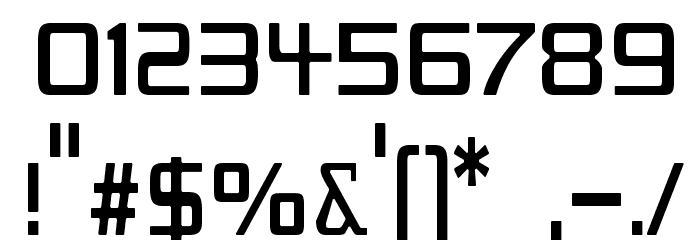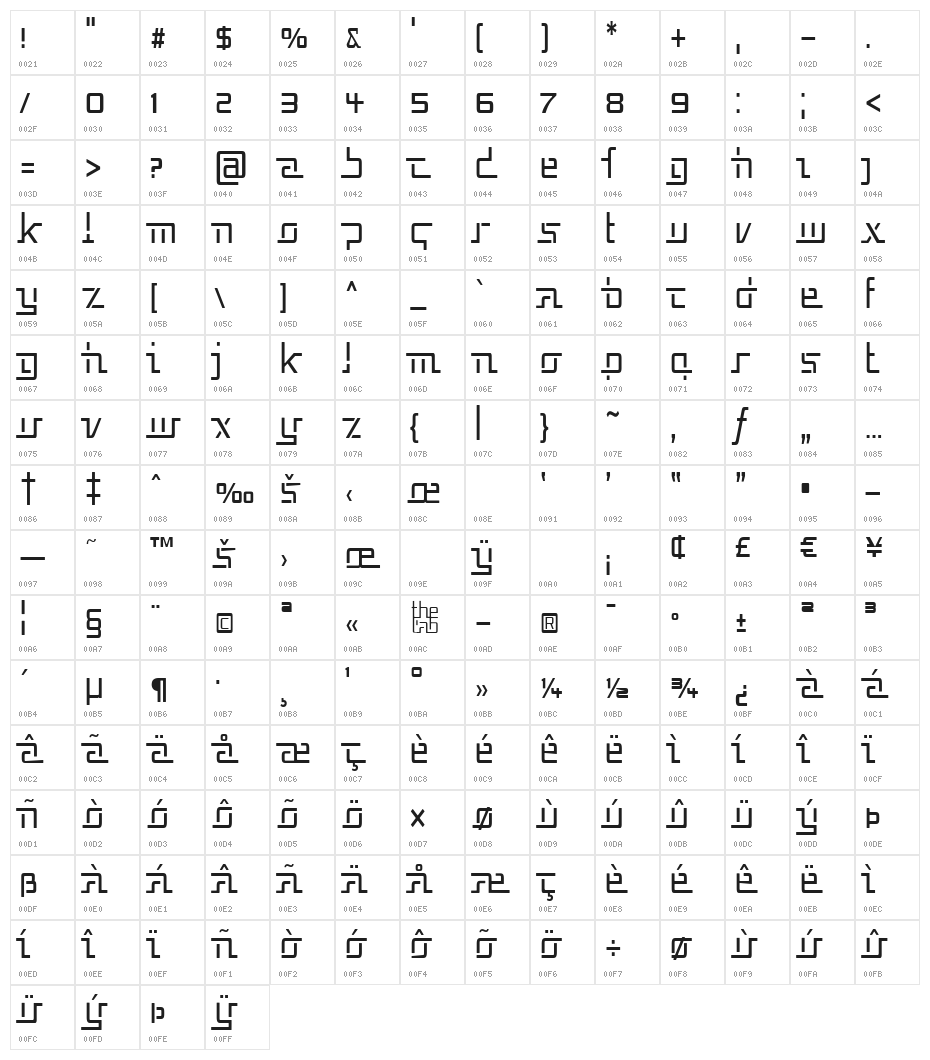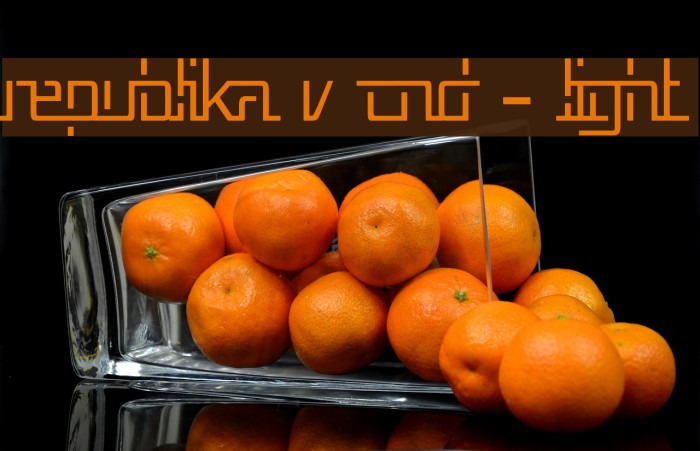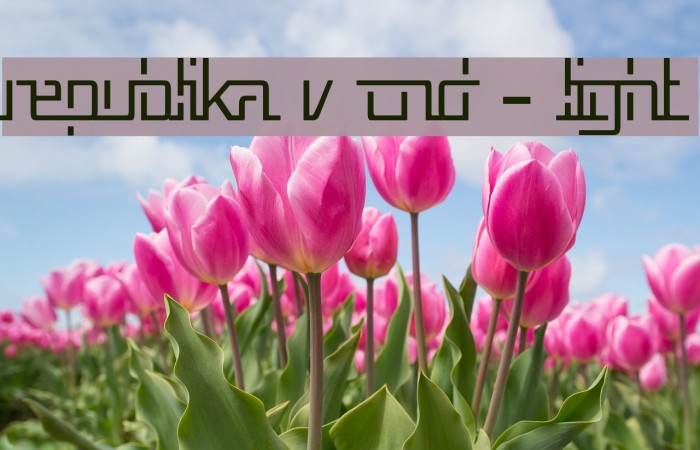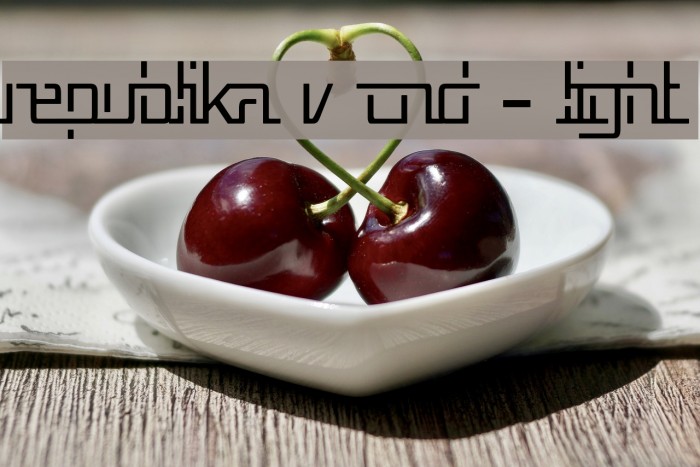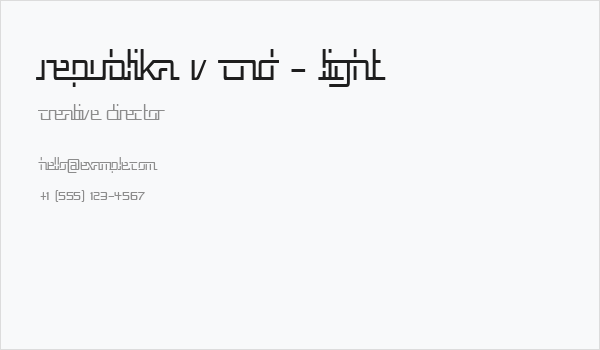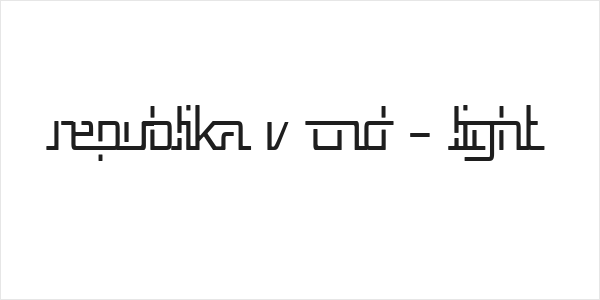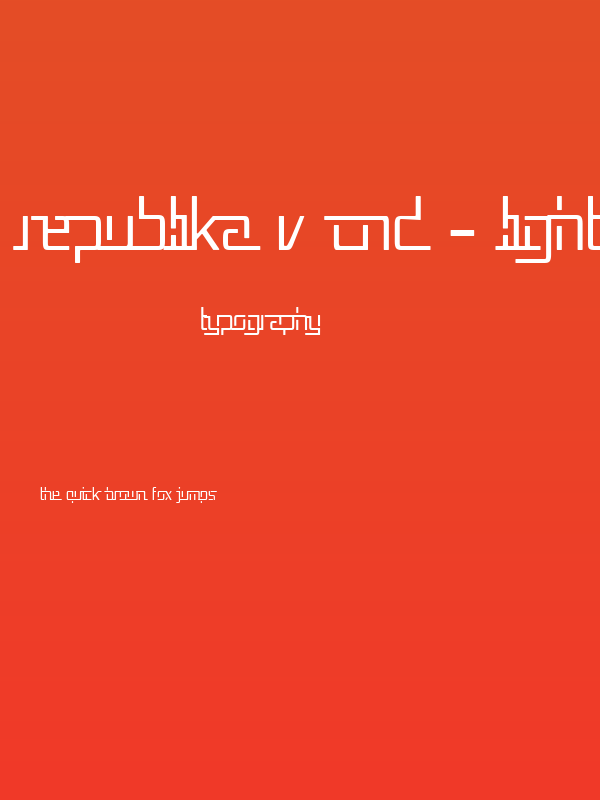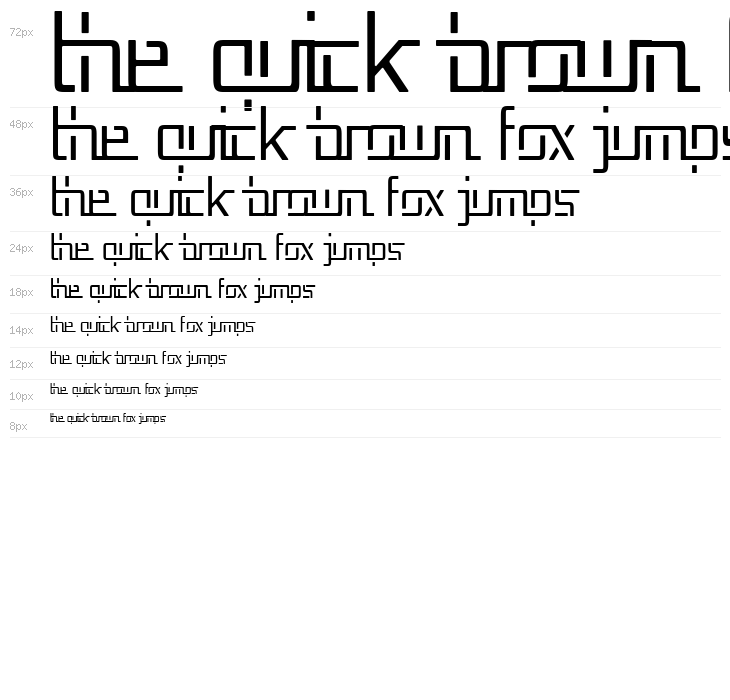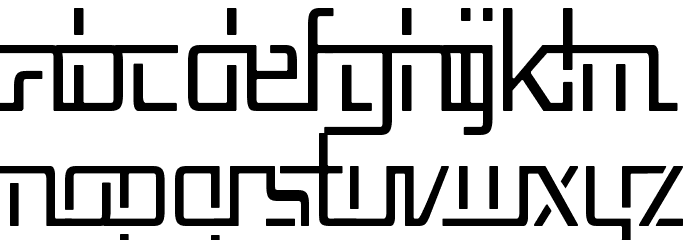
Republika V Cnd - Light Font
Republika V Cnd - Light Description
This font features a modern, geometric design with a distinctively futuristic aesthetic. The characters are constructed with consistent line thickness, creating a uniform appearance across both uppercase and lowercase letters. The angular and linear elements give it a digital, tech-inspired look, making it ideal for projects that require a contemporary and innovative feel. The numerals and special characters maintain the same stylistic approach, ensuring cohesion throughout the typeface. Its clean lines and structured form make it suitable for a variety of design applications.
| Overall Style | Futuristic, Geometric |
| Use Case | Headlines, Logos, Digital Interfaces |
| Proposed Projects | Ideal for technology branding, digital interfaces, futuristic posters, and modern graphic design projects. |